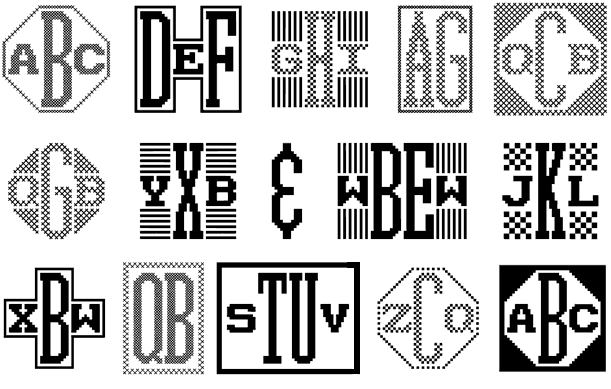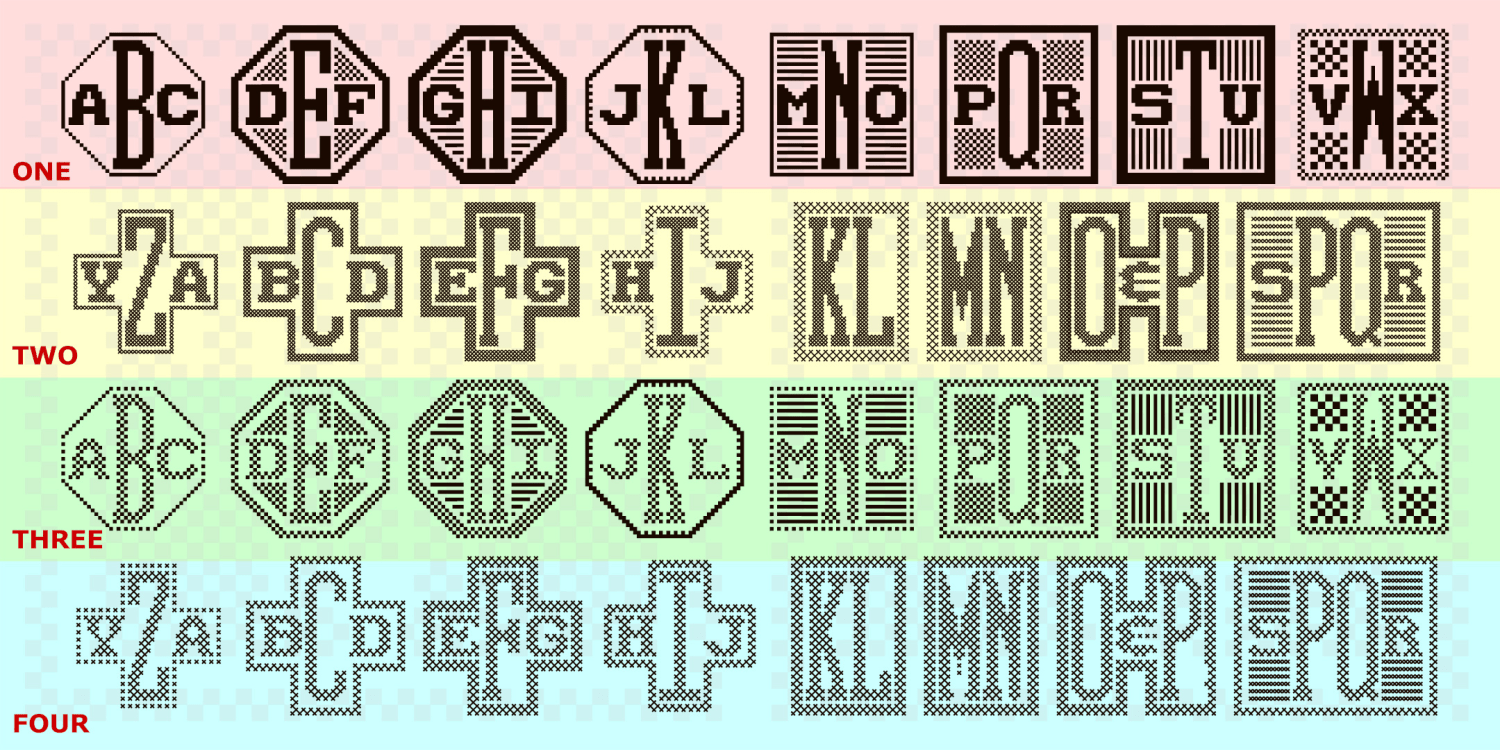
HomeFont BrosMonogramsNeedlepoint Monograms Needlepoint Monograms FacebookXPinterestWhatsApp 1 of 2 About Needlepoint Monograms is a set of 4 fonts to create monograms of 2, 3, 4 or more letters that look like hand-embroidered samplers, with a choice of styles and extras.  DOWNLOAD NOW People also explored Astylooms Font Ben Font Hello Winter Font Orlina Bubble Font Rocky Display Font Eds Market Collection Font Honeyloves Font Watermelon is Delicious Font Arcopolist Font 253 0 TagsNeedlepoint Monograms Font Previous articleAfrican Elephant TrunkNext articleSanelma LEAVE A REPLY Cancel reply Comment: Please enter your comment! Name:* Please enter your name here Email:* You have entered an incorrect email address! Please enter your email address here Website: Save my name, email, and website in this browser for the next time I comment. Personal Use Free Bakk Trieng Personal Use Free Read more about this font Marthissa Personal Use Free Read more about this font Lixdu Personal Use Free Read more about this font Adelia Font Personal Use Free Read more about this font BLOG Fonts That Capture the Spirit of New York City New York City is more than just a place—it’s an experience, a rhythm, a visual language... Modern Sans-Serif Fonts That Brands Love in 2025 Top 10 Handwritten Fonts That Elevate Your Designs How to Install and Use Fonts on Windows, macOS, and Web Projects